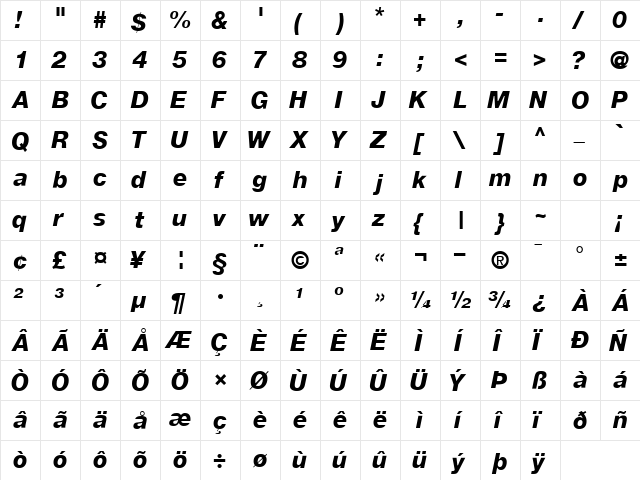
ContextRepriseBlackSSK Italic
Design Context for ContextRepriseBlackSSK Typeface
ContextRepriseBlackSSK offers clean, dependable letterforms without strong stylistic allegiance, making it a practical choice for designers who need flexibility. The slanted form adds forward momentum and visual energy.
Pro Tip: Use ContextRepriseBlackSSK for emphasis, pull quotes, and subheadings where its slanted energy can add rhythm to the layout.